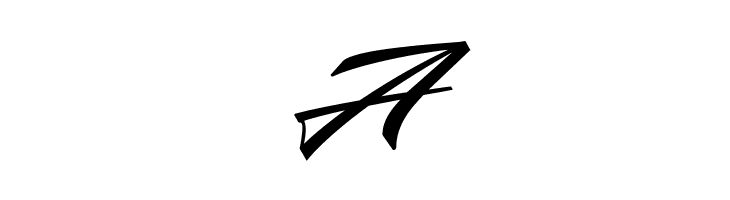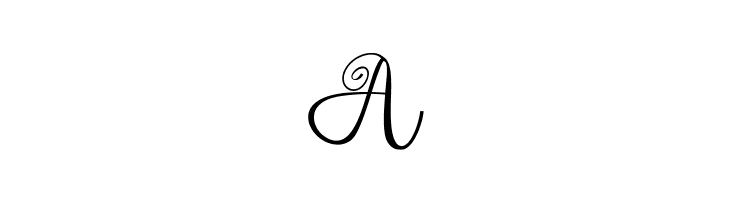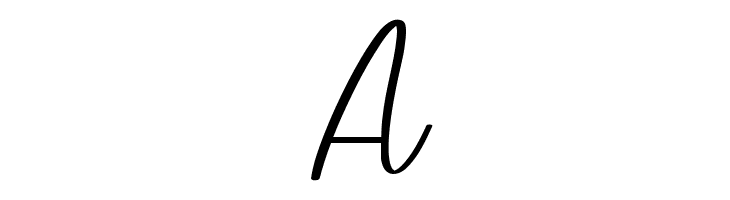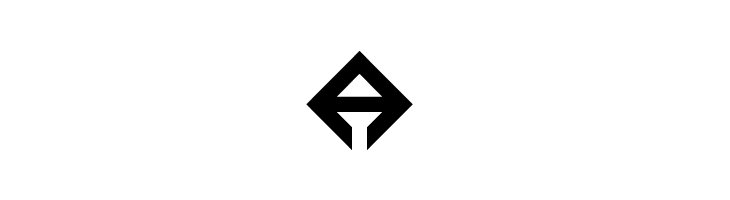
A bold, gothic-inspired font with sharp serifs and high contrast strokes.
( Fonts by Eyecue Design - Chris Brown )
A bold, playful font with rounded edges and whimsical characters.
A bold, flowing script font with a dynamic, handwritten style.
A bold, textured font with a vintage, distressed style.
( Brixdee - jack-oatley.com/ )
A bold, geometric font with angular shapes and a futuristic style.
( Fonts by VinType )
A flowing, elegant script font with a handwritten style.
A bold, angular font with a futuristic and geometric design.
A bold, playful font with rounded edges and a hand-drawn feel.
A bold, brush-style font with dynamic, textured strokes.
( JLH Fonts - jlhfonts.blogspot.com/ )
A hand-drawn, organic font with uneven strokes and a casual, approachable feel.
A hand-drawn, playful font with irregular strokes and a whimsical style.
A cursive, handwritten font with elegant, flowing strokes.
A bold, distressed font with a textured, vintage look.
A bold slab serif font with strong, rounded characters.
A bold slab serif font with strong, block-like serifs and a cohesive design.
A bold, geometric font with slab serifs and a modern classic style.
A bold, shadowed font with a modern and striking design.
A bold, stencil-style font with geometric shapes and clean lines.
A bold, outlined font with a geometric and modern style.
A bold, shadowed serif font with a modern twist.
A bold, shadowed font with a strong, geometric design.
A bold, stencil-style font with geometric cutouts and an industrial feel.
A bold, stencil-style font with geometric precision and industrial appeal.
A bold, outlined serif font with a classic and structured appearance.
A bold, outlined geometric font with a modern and clean appearance.
A decorative, hand-drawn font with artistic flourishes and a rustic, vintage feel.
( Vladimir Fedotov )
A bold, high-contrast serif font with sharp edges and elegant curves.
A bold, stencil-style font with a military-inspired design.
A decorative and modern font with whimsical uppercase and straightforward lowercase letters.
A decorative and modern font with ornate uppercase and clean lowercase characters.
A whimsical and decorative script font with playful swirls and loops.
A dynamic and elegant script font with a modern, handwritten style.